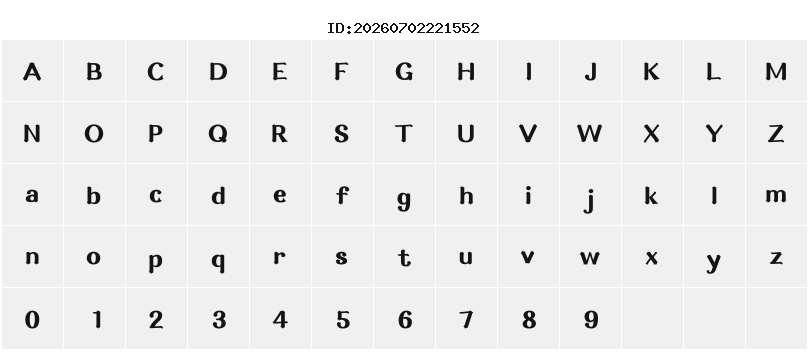
214-上首朱雀体 Preview
• Font Name: 214-上首朱雀体
• Font ID: 214-SSZhuQueTi:Version 6.00
• Full Font Name: 214-上首朱雀体
• Version: Version 6.00 January 18, 2023
• PostScript Name: 214-SSZhuQueTi
• Character Count: 7569
• Manufacturer: 上首造字
About 214-上首朱雀体.ttf
214-上首朱雀体.ttf is a modern, elegant sans-serif font designed for ultimate readability and visual harmony. Perfect for branding, headlines, web design, and print materials.